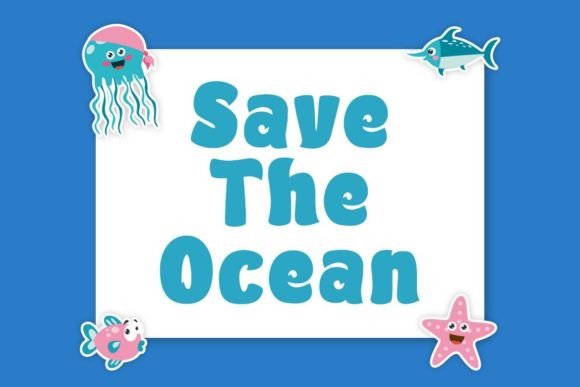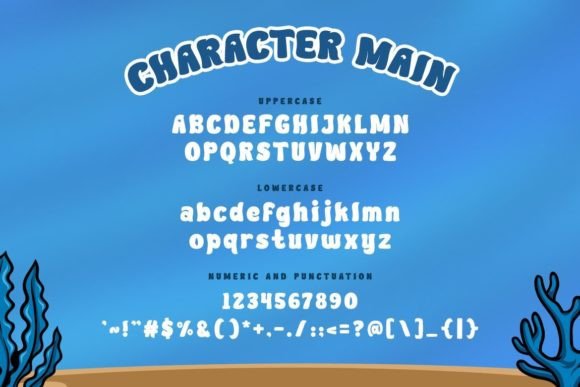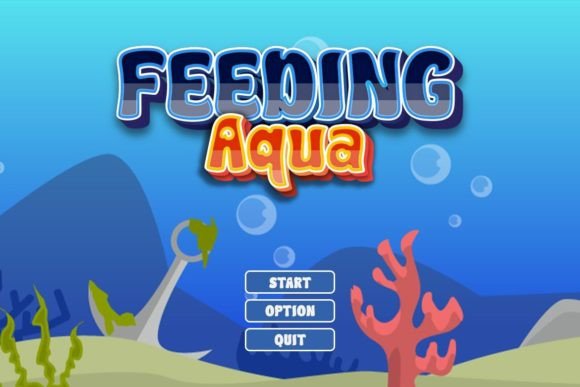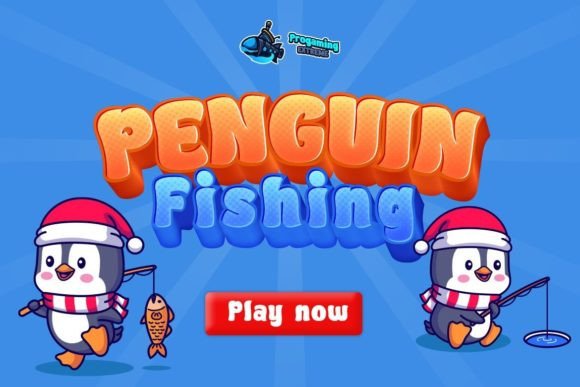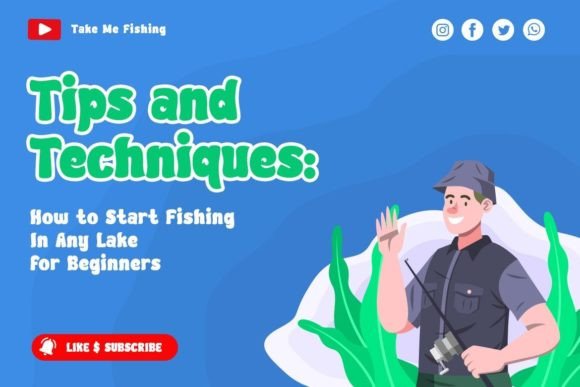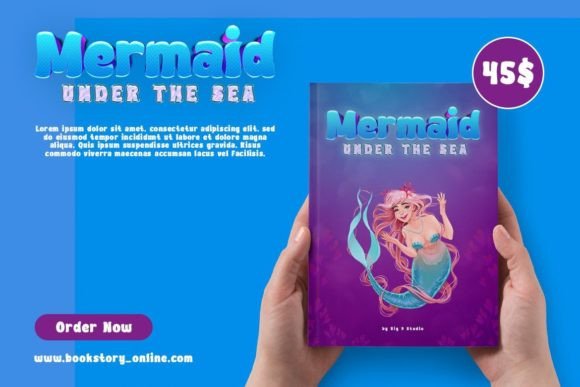
Fat Fish – Ocean Gaming Font – Free Download
Introduction to Fat Fish – Ocean Gaming Font
Fat Fish – Cartoon Gaming Font Bold and cute, also giving perfect readability in a formal vibe, but still bringing a fun twist to it.
Fat Fish – Cartoon Gaming Font Bold and cute, also giving perfect readability in a formal vibe, but still bringing a fun twist to it. Suited perfectly for children’s books market, online games, teens
Key Features of Fat Fish – Ocean Gaming Font
Why Choose Fat Fish – Ocean Gaming Font?
Fat Fish – Ocean Gaming Font offers exceptional quality and versatility, making it a valuable addition to your design toolkit. Whether you’re creating for personal projects or commercial use, Fat Fish – Ocean Gaming Font delivers professional results.